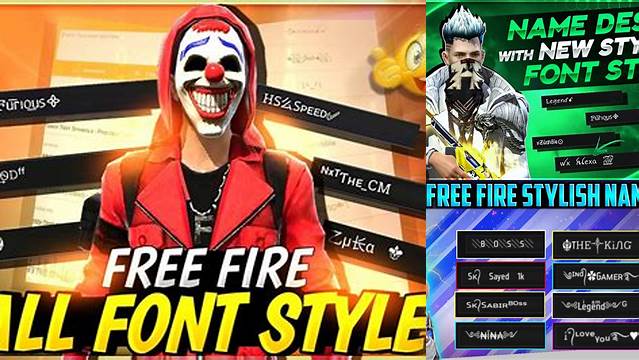
Stylish FF Name: Pro Fonts For Free Fire Domination
Hey guys! Want to level up your Free Fire game beyond just skills? A cool and stylish name can make you stand out on the battlefield. Using a pro font for your Free Fire (FF) name is a fantastic way to showcase your personality and intimidate opponents. In this guide, we'll dive deep into the world of stylish FF names, exploring how to find, generate, and use pro fonts to create a name that truly represents you. We'll cover everything from understanding the importance of a unique name to using online tools and apps for name customization. So, buckle up and get ready to transform your in-game identity!
Why a Pro Font Name Matters in Free Fire
In the fast-paced world of Free Fire, first impressions matter. Your in-game name is the first thing other players see, and it's a crucial part of your overall presence. A generic name can easily get lost in the crowd, but a name with a unique and stylish font can instantly grab attention. Think of it as your personal brand within the game – it's what people will remember you by. A pro font name can convey a sense of skill, style, and personality. It shows that you've put thought and effort into your identity, which can be intimidating to opponents. Imagine encountering a player with a name written in a bold, aggressive font versus someone with a plain, default name. Who would you perceive as the bigger threat? The player with the pro font name, of course! Beyond aesthetics, a unique name can also help you build a reputation within the Free Fire community. If you consistently perform well and have a memorable name, other players are more likely to remember you and even seek you out for matches or collaborations. This can open doors to new friendships, squad opportunities, and even competitive play. So, don't underestimate the power of a well-crafted name – it's an essential part of your Free Fire journey. Choosing a stylish font is just one piece of the puzzle, but it's a significant one. It's about more than just looking cool; it's about making a statement and building a persona that reflects your gaming style and aspirations.
Understanding Free Fire Name Restrictions
Before you start going wild with fancy fonts and symbols, it's important to understand the limitations set by Free Fire's naming system. Garena, the developers of Free Fire, have implemented certain restrictions to ensure a fair and respectful gaming environment. These restrictions primarily revolve around character limits and allowed characters. First and foremost, there's a character limit on Free Fire names. This means you can only use a certain number of letters, symbols, and spaces in your name. The exact limit may vary slightly depending on updates, but it's generally around 12 characters. This might seem limiting, but it encourages creativity and forces you to think strategically about how to make the most impact with a concise name. Secondly, Free Fire has restrictions on the types of characters you can use. While the game supports a wide range of alphanumeric characters (letters and numbers), certain special symbols and characters are not allowed. This is primarily to prevent the use of offensive or disruptive characters that could spoil the experience for other players. The game also prohibits the use of inappropriate language or names that violate community guidelines. This includes names that are racist, sexist, homophobic, or otherwise offensive. Garena takes these violations seriously and may issue warnings, name changes, or even bans for players who violate these rules. So, it's crucial to keep your name clean and respectful. While the game's built-in keyboard might limit your options, there are ways to bypass these limitations using Unicode characters. Unicode is a universal character encoding standard that includes a vast array of symbols, letters, and other characters from different languages. By using Unicode characters, you can access fonts and symbols that are not available on your standard keyboard, allowing you to create a more unique and stylish name. However, it's important to note that not all Unicode characters are supported by Free Fire. Some characters may not display correctly or may be filtered out by the game's system. It's always a good idea to test your name after creating it to make sure it appears as intended in the game.
Finding Pro Fonts for Your FF Name
Now for the fun part: finding the perfect font to give your Free Fire name that pro edge. Fortunately, the internet is brimming with resources to help you generate stylish names and convert text into various cool fonts. Several websites and apps specialize in generating fancy text for social media, games, and other platforms. These tools often utilize Unicode characters to create fonts that aren't typically available on standard keyboards. One popular method is using online font generators. These websites allow you to type in your desired name, and they'll instantly generate a variety of fonts for you to choose from. Some popular websites include Nickfinder, LingoJam, and CoolSymbol. These websites offer a wide range of stylish fonts, from bold and futuristic to elegant and cursive. You can simply browse the options, copy the font you like, and paste it into your Free Fire name field. Another useful tool is a Unicode character map. This is a comprehensive list of all the Unicode characters available, allowing you to pick and choose specific symbols and letters to customize your name. You can find Unicode character maps online or download apps that provide easy access to these characters. Using a Unicode character map can be a bit more time-consuming than using a font generator, but it gives you greater control over the final appearance of your name. You can mix and match different fonts, symbols, and characters to create a truly unique and personalized name. In addition to websites, there are also mobile apps designed specifically for generating stylish names for games. These apps often have features like font previews, symbol libraries, and even name suggestions. Some popular apps include Stylish Text, Font Generator, and Nickname Generator. These apps can be particularly convenient for mobile gamers, as they allow you to create and copy your name directly from your phone or tablet. When choosing a font, it's important to consider the overall aesthetic you're going for. Do you want a name that's bold and intimidating, or something more subtle and stylish? Think about your personality and gaming style, and choose a font that reflects that. It's also a good idea to test out different fonts in the game to see how they appear to other players. Some fonts may look great on a website or app, but they might not be as legible in Free Fire's in-game interface.
- Enjoy Your New Name: Once you've confirmed, your name will be changed, and other players will see your stylish new moniker in-game.
It's important to note that you can only change your name a limited number of times within a certain period. After changing your name, there's usually a cooldown period before you can change it again. This cooldown period can range from a few days to several weeks, so it's important to choose your new name carefully. Before confirming your name change, make sure to double-check for any typos or errors. It's also a good idea to ask a friend to review your name to ensure it looks and reads as intended. Once you've confirmed, there's no going back until the cooldown period is over.
Tips for Creating the Ultimate FF Name
Creating the ultimate Free Fire name is an art form. It's about striking the perfect balance between style, uniqueness, and memorability. While a pro font is a great starting point, there are other factors to consider to truly stand out. Here are some tips and tricks to help you craft a name that commands attention:
- Incorporate Symbols and Characters: Don't be afraid to get creative with symbols and special characters. Unicode offers a vast array of symbols that can add flair and personality to your name. Consider using symbols that complement your font choice and overall theme. For example, if you're using a bold, aggressive font, you might incorporate symbols like swords, skulls, or fire icons. If you're going for a more elegant look, you might use symbols like stars, hearts, or floral motifs.
- Mix Fonts and Styles: Experiment with combining different fonts and styles within your name. You can use one font for the main part of your name and another font for a suffix or prefix. This can create a visually interesting effect and help your name stand out. However, be careful not to overdo it. Using too many different fonts can make your name look cluttered and difficult to read. Aim for a cohesive look that is both stylish and legible.
- Consider Your Personal Brand: Your Free Fire name should reflect your personality and gaming style. Think about what kind of impression you want to make on other players. Are you a fierce competitor, a stealthy assassin, or a supportive teammate? Choose a name that aligns with your persona. If you have a favorite weapon, character, or playstyle, you can incorporate that into your name. This will help you create a name that is both unique and meaningful.
- Keep It Short and Memorable: While stylish fonts and symbols can make your name visually appealing, it's important to keep it relatively short and easy to remember. Long, complicated names are difficult to recall and can get lost in the heat of battle. Aim for a name that is 12 characters or less, and make sure it's easy to pronounce and spell. A catchy and memorable name will help you build a reputation and make a lasting impression on other players.
- Check for Availability: Before you get too attached to a particular name, check to see if it's available. Many popular names are already taken, so you may need to get creative and come up with something original. Free Fire will usually tell you if a name is already in use when you try to change your name. If your desired name is taken, try adding a symbol, changing the font, or using a slightly different spelling.
- Test Your Name In-Game: Once you've created your name, test it out in the game to see how it looks and reads to other players. Some fonts and symbols may not display correctly in the in-game interface, so it's important to make sure your name is legible and visually appealing. Ask your friends for feedback on your name and see what they think. They may have suggestions for improvements or alternative fonts and styles.
By following these tips, you can create a Free Fire name that is not only stylish but also memorable and representative of your unique gaming persona. So go ahead, get creative, and craft a name that will make you a legend on the battlefield!
Conclusion: Stand Out with a Pro FF Name
So, there you have it! A comprehensive guide to creating a pro Free Fire name that will help you stand out from the crowd. From understanding the importance of a stylish name to finding the perfect font and implementing it in-game, we've covered all the essentials. Remember, your Free Fire name is more than just a label; it's a reflection of your personality and gaming style. A well-crafted name can make a lasting impression on other players, helping you build a reputation and establish your presence in the Free Fire community. By using pro fonts, symbols, and creative naming techniques, you can craft a name that commands attention and instills fear in your opponents. Whether you prefer a bold and aggressive name or something more subtle and stylish, the possibilities are endless. With the tools and tips we've discussed, you can create a name that truly represents you and your gaming prowess. So, take the time to experiment with different fonts, symbols, and styles. Use the online resources and mobile apps we've recommended to generate unique and eye-catching names. Don't be afraid to think outside the box and try something different. The perfect Free Fire name is waiting to be discovered, and it's just a matter of unleashing your creativity. And most importantly, remember to have fun with the process! Creating your Free Fire name should be an enjoyable experience. So, gather your friends, brainstorm ideas, and see what you can come up with. With a little effort and imagination, you'll be rocking a pro FF name that will make you the envy of the battlefield in no time. Now go out there and dominate Free Fire with your stylish new moniker!